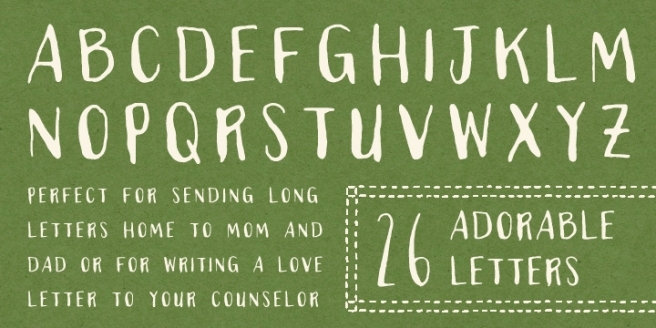
Our January 14, 2016 issue of Font Faves features Corbert from The Northern Block, Campland from Magpie Paper Works, and Breve Title from DSType.
Northern Block is known for their sans serif fonts and Corbert is one of the best examples of their prowess. Featuring modern curves based on Bauhaus design, the Corbert family would be a fantastic identity font for a company looking to try something other than standard.
Corbert
The Northern Block
Sometimes you want a font that’s a little on the messier side and looks like you had to etch something rather than write it neatly. Campland fits that need really well, delivering something sloppy that still has charm and doesn’t look amateur.
Campland
Magpie Paper Works
A huge family of varying styles, Breve is the ultimate in typefaces for larger companies creating various designs. It comprises text, headline, display, and book fonts: everything in one place in one giant family. I’d like to highlight Breve Title, one of the serif versions which are my favorites.
Breve Title
DSType